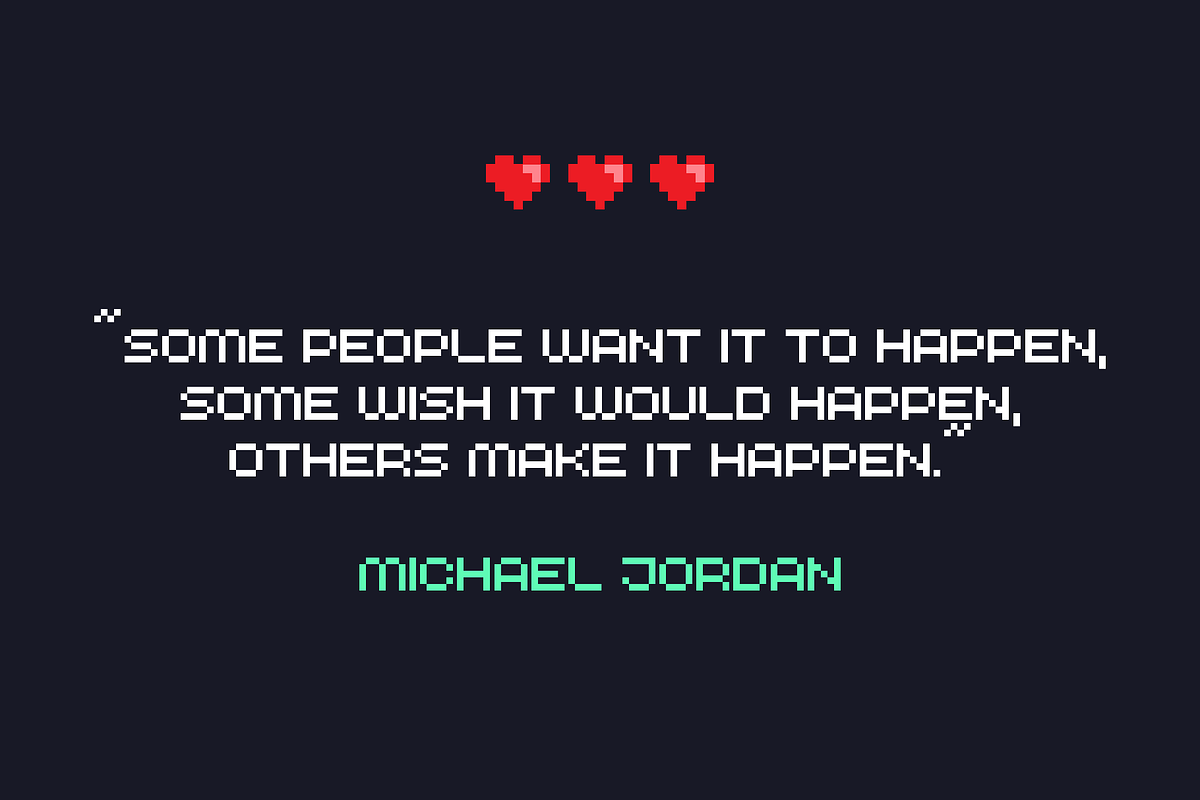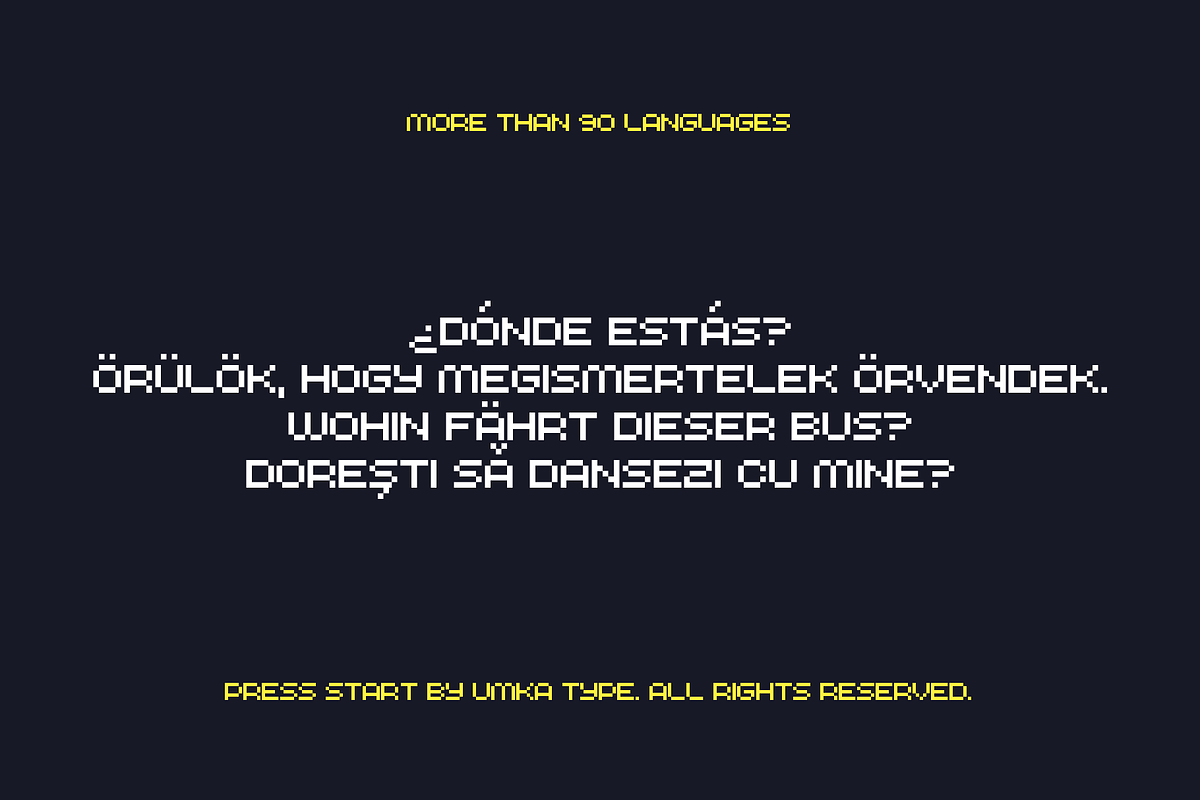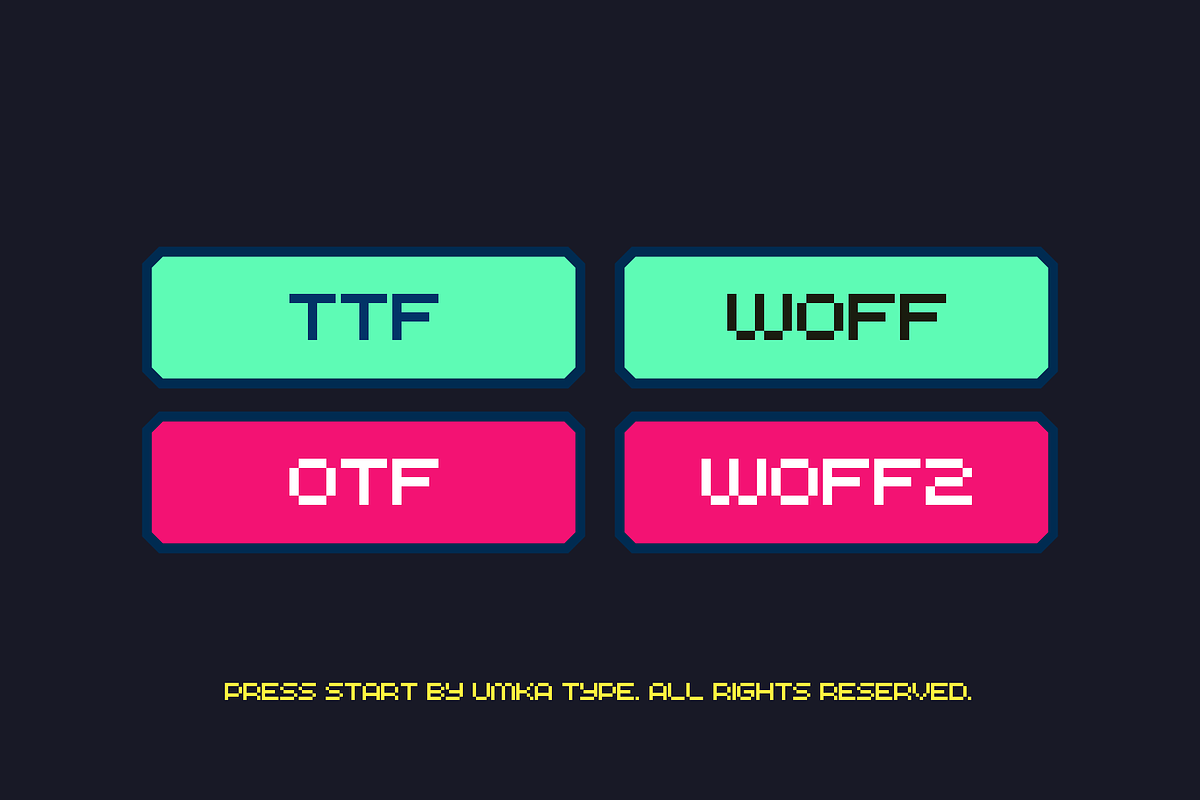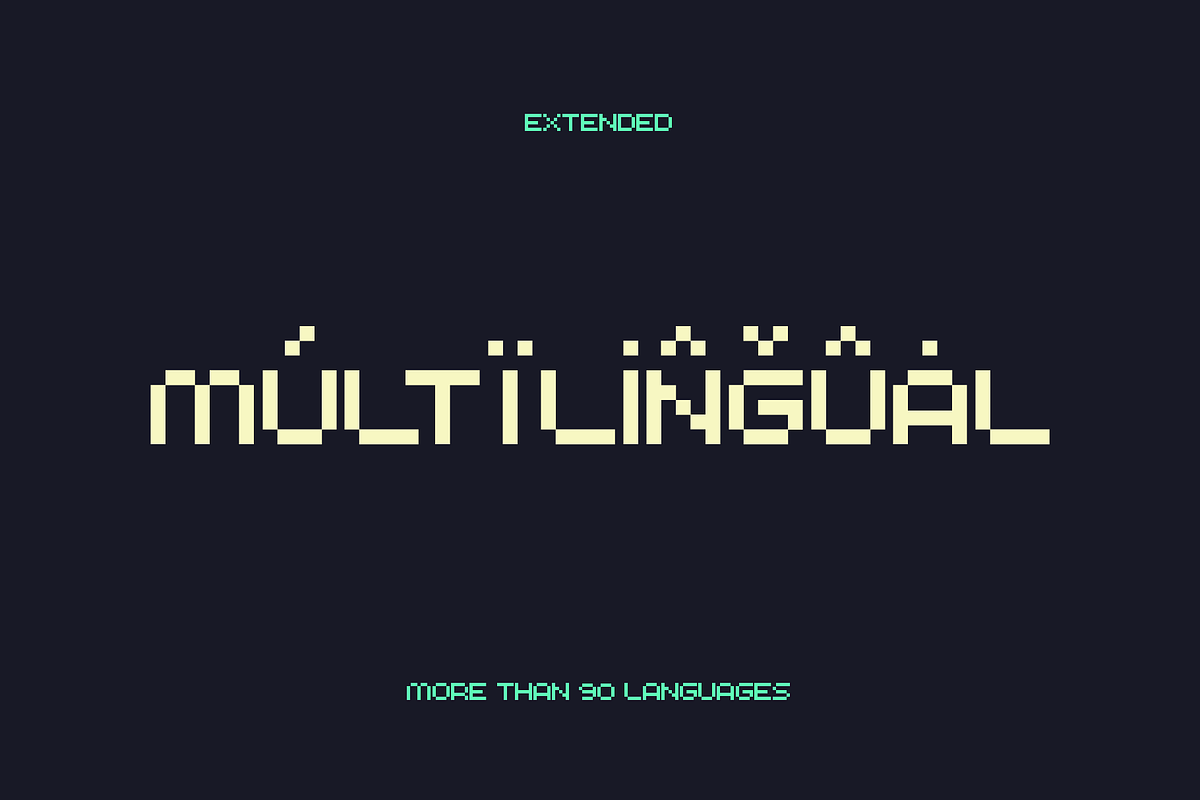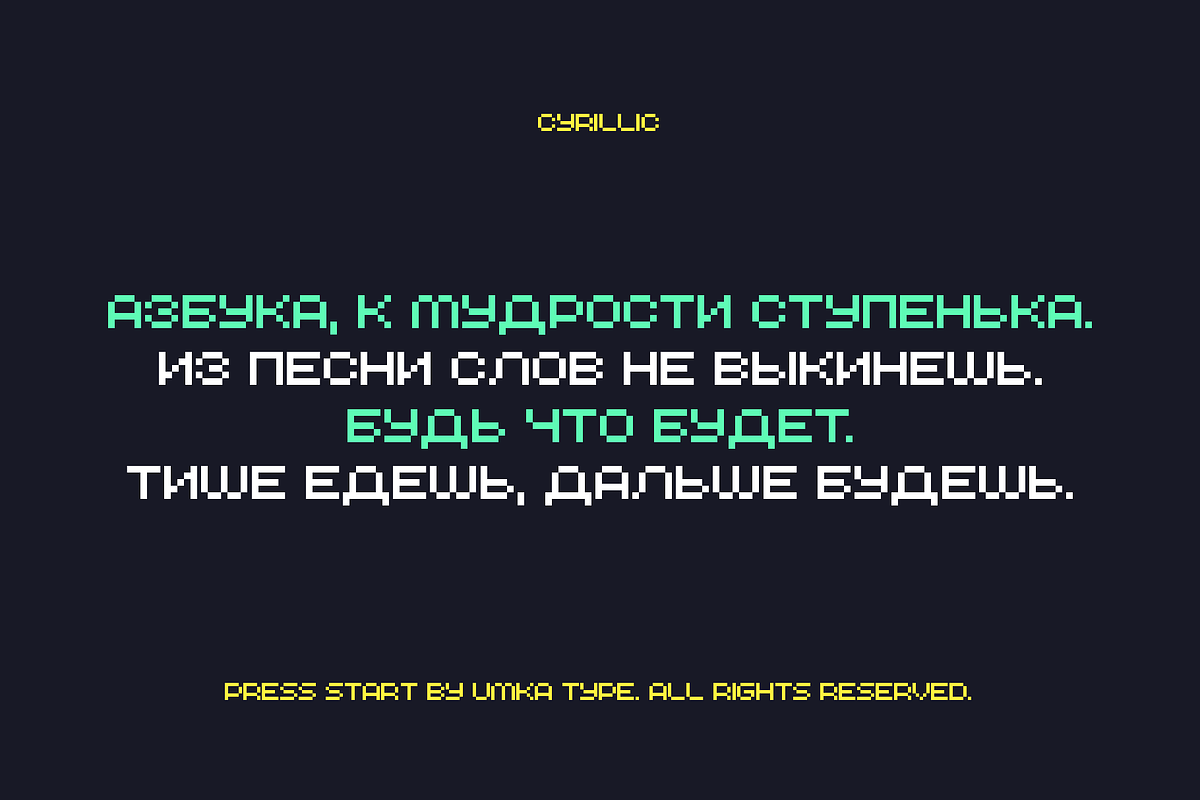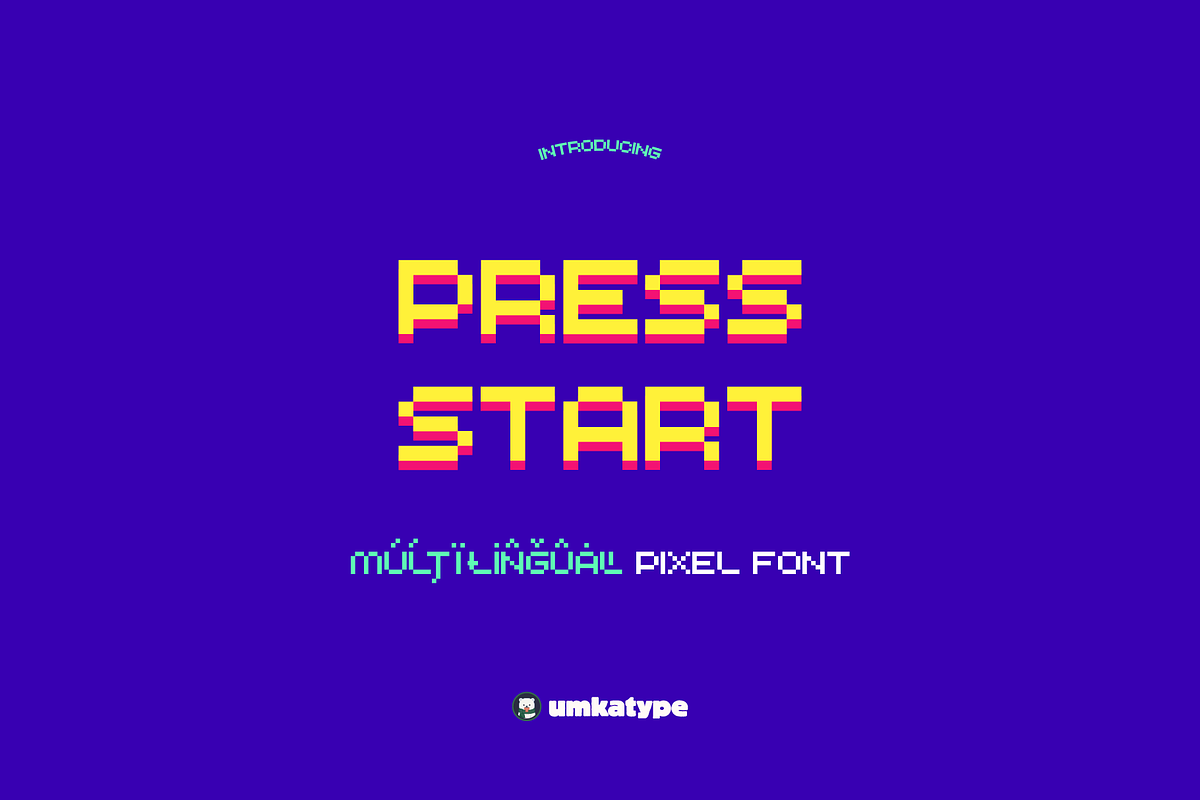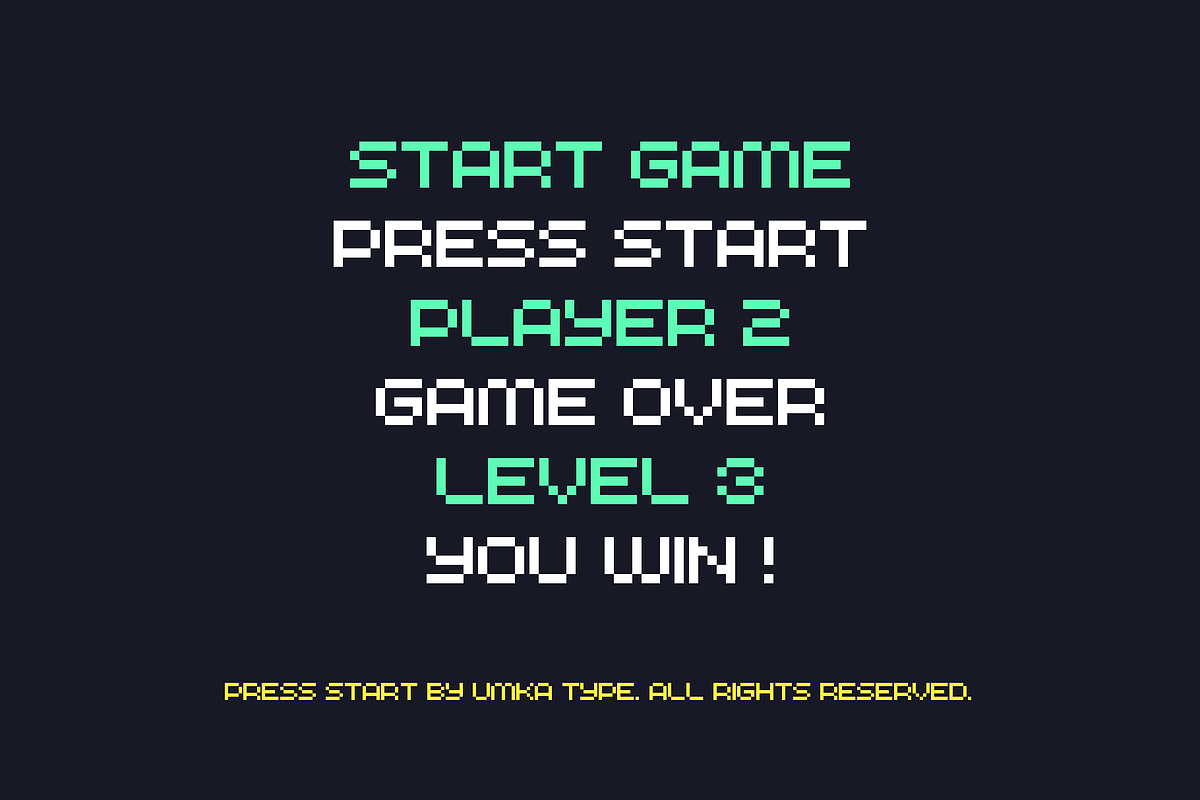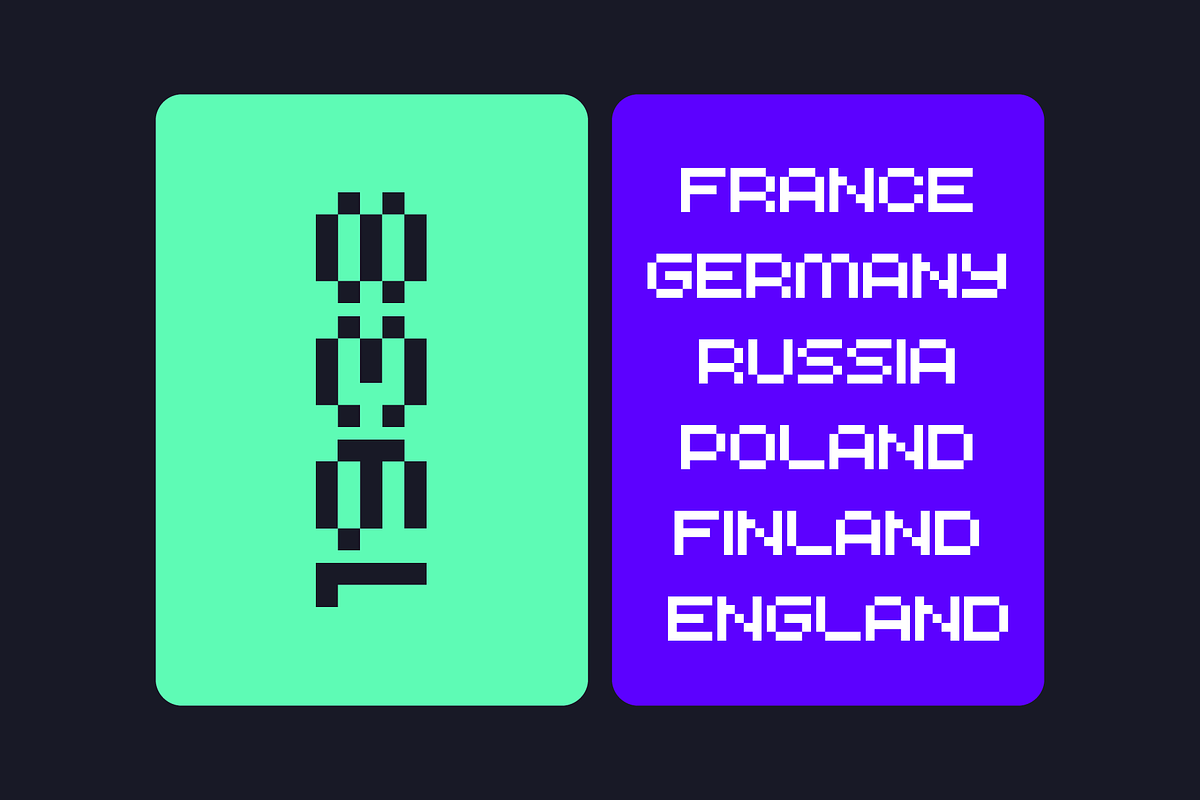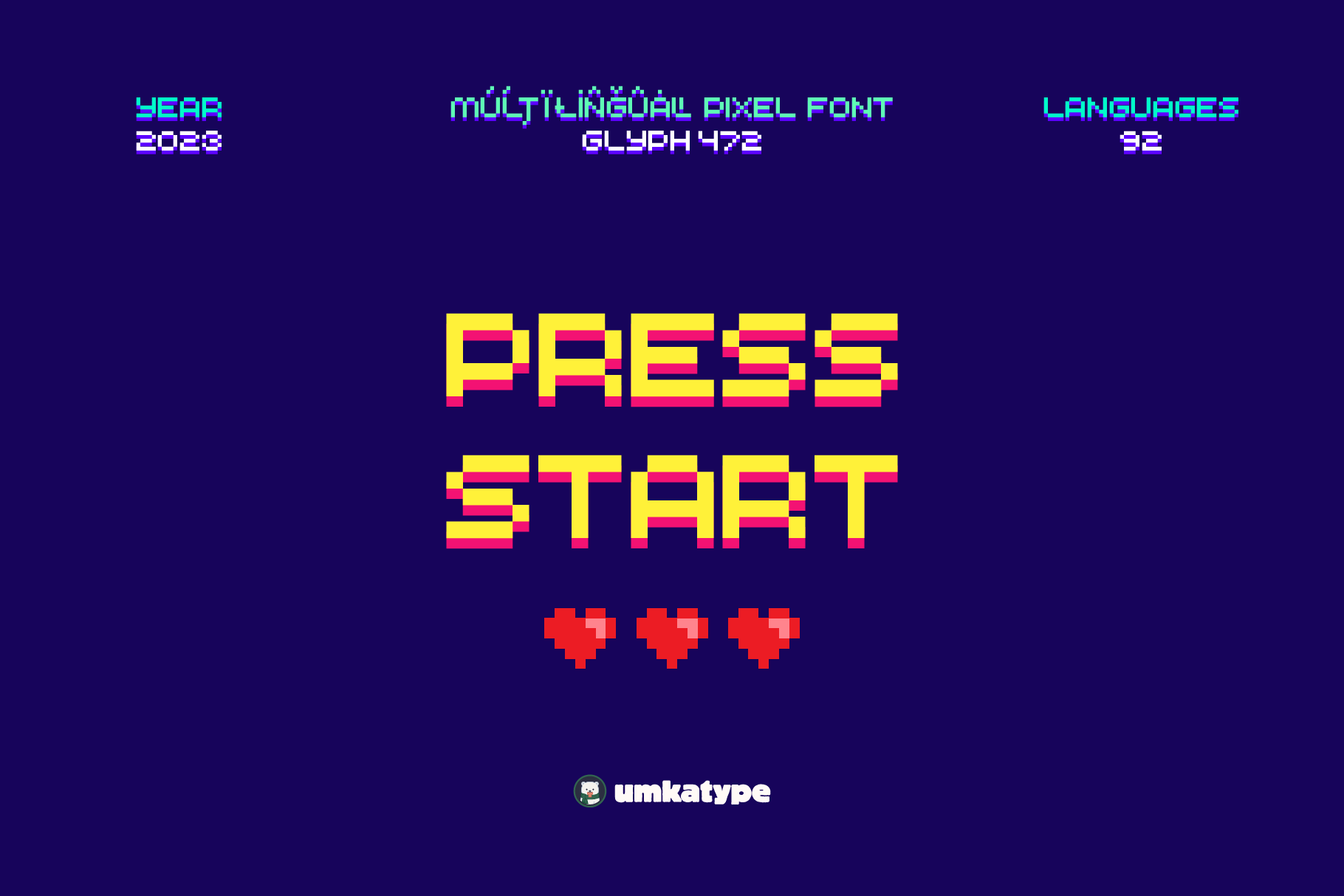
PressStart Pixel Game Font
PressStart - Pixel Font
- PressStart is a carefully crafted font.
- Multilingual: It has Extended Latin and Extended Cyrillic letters.
PressStart created for animation, games, web design, branding and social media works.